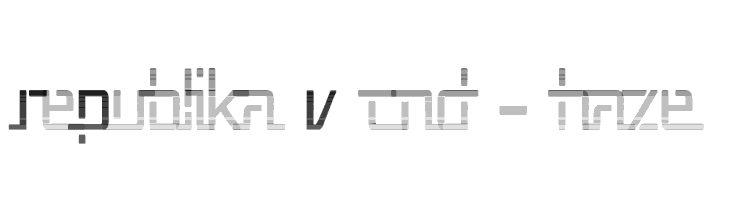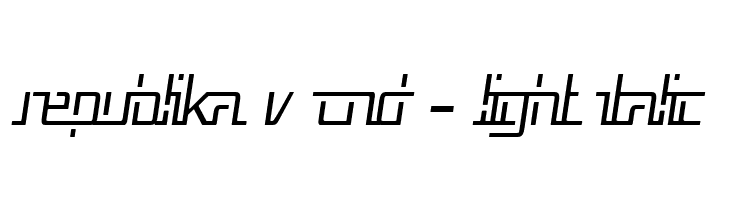
A futuristic, geometric font with a digital and mechanical aesthetic.
A futuristic, geometric italic font with a dynamic and sleek design.
A modern, geometric font with a futuristic and tech-inspired design.
A sleek, modern, condensed italic font with a futuristic and technical feel.
A bold, geometric font with a shattered glass effect for a dynamic look.
A bold, italicized font with a shattered effect, ideal for dynamic and modern designs.
A sketch-like, three-dimensional font with a modern, geometric design.
A sketch-style, condensed italic font with a hand-drawn effect.
A bold, geometric font with a futuristic and modern aesthetic.
A bold, ultra-condensed italic font with geometric shapes and dynamic style.